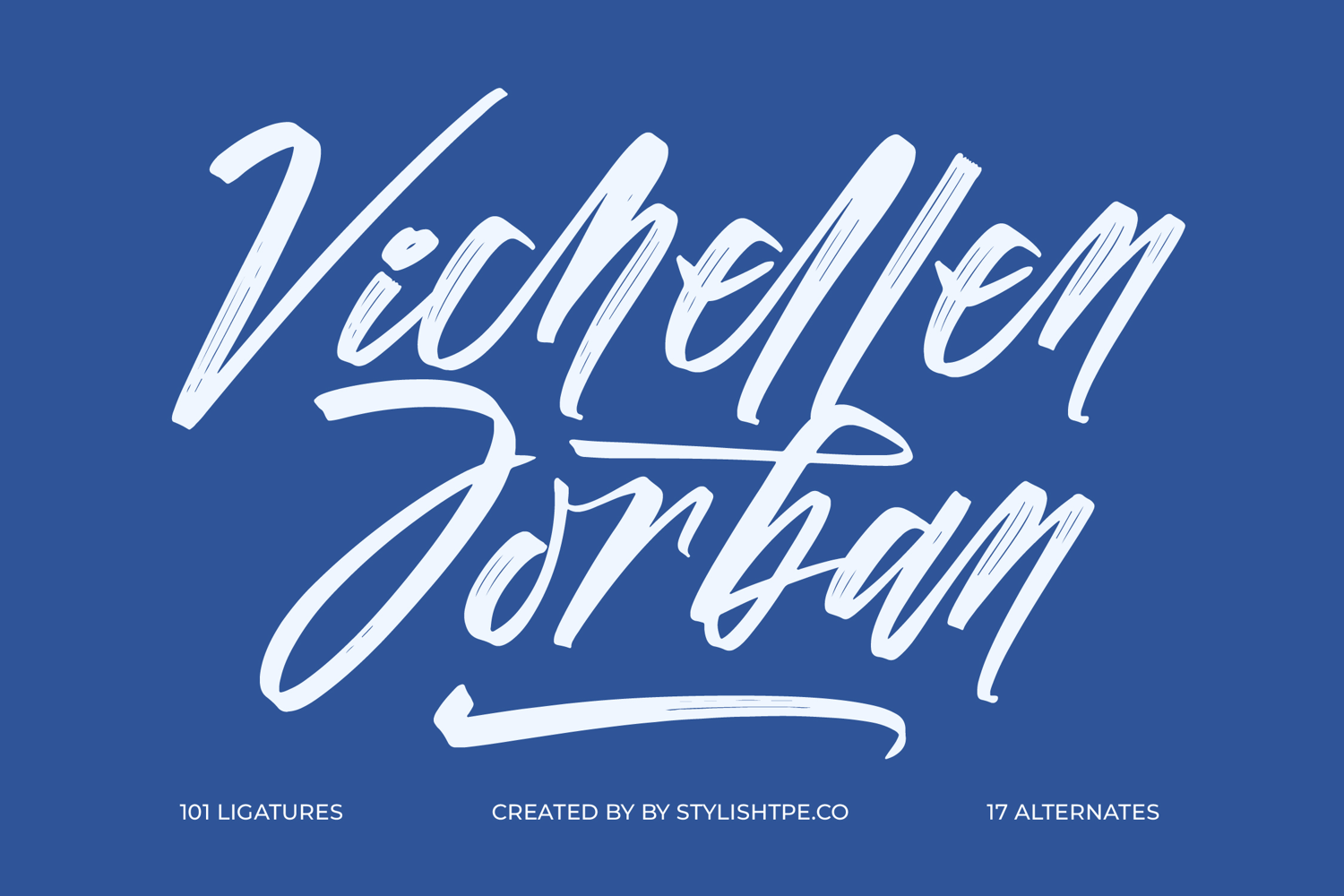
Vichellen Jordan - Modern Brush Font
Vichellen Jordan
Vichellen Jordan Italic
Designed for unparalleled flexibility, Font Vichellen Jordan - Modern Brush Font Script features an impressive array of 101 ligatures and 17 alternates, allowing for truly customized and unique typographic compositions. These rich OpenType features ensure genuine handcrafted authenticity and avoid repetitive letterforms, delivering a truly bespoke feel. With its extensive multilingual support, Font Vichellen Jordan - Modern Brush Font Script adapts seamlessly across global markets, making it incredibly versatile for international projects.